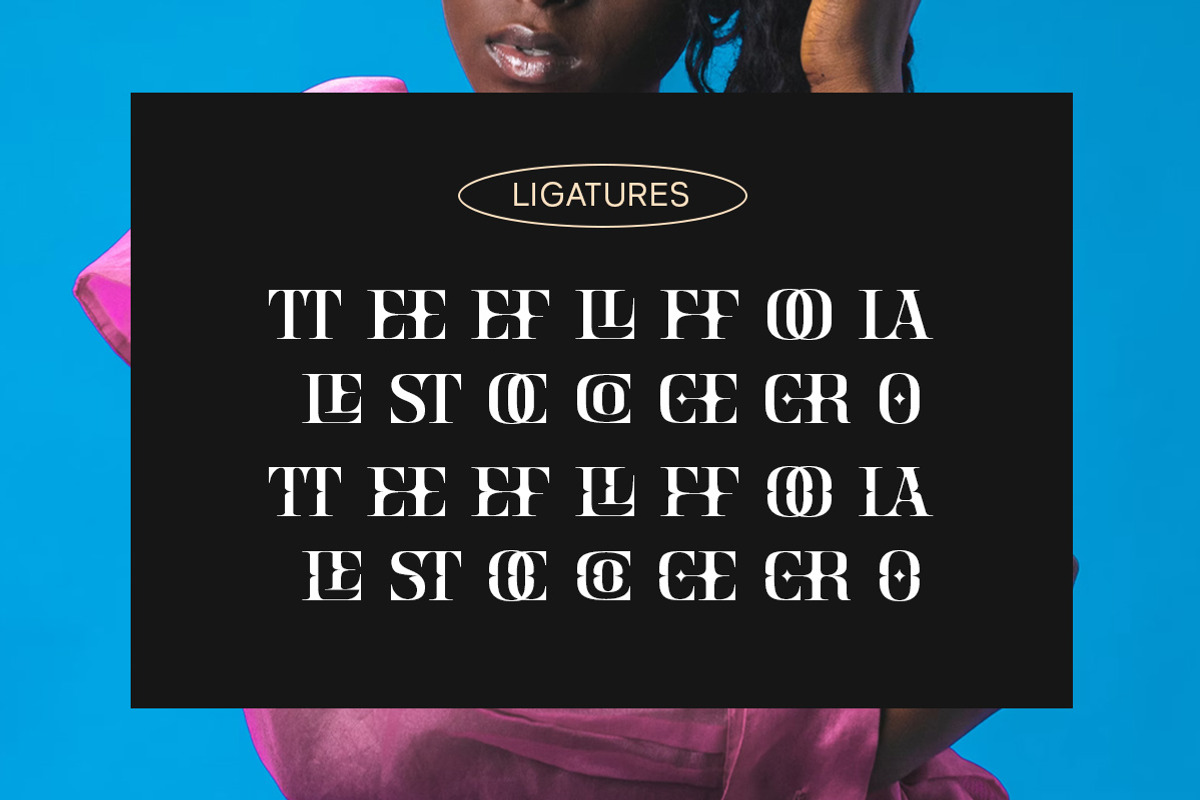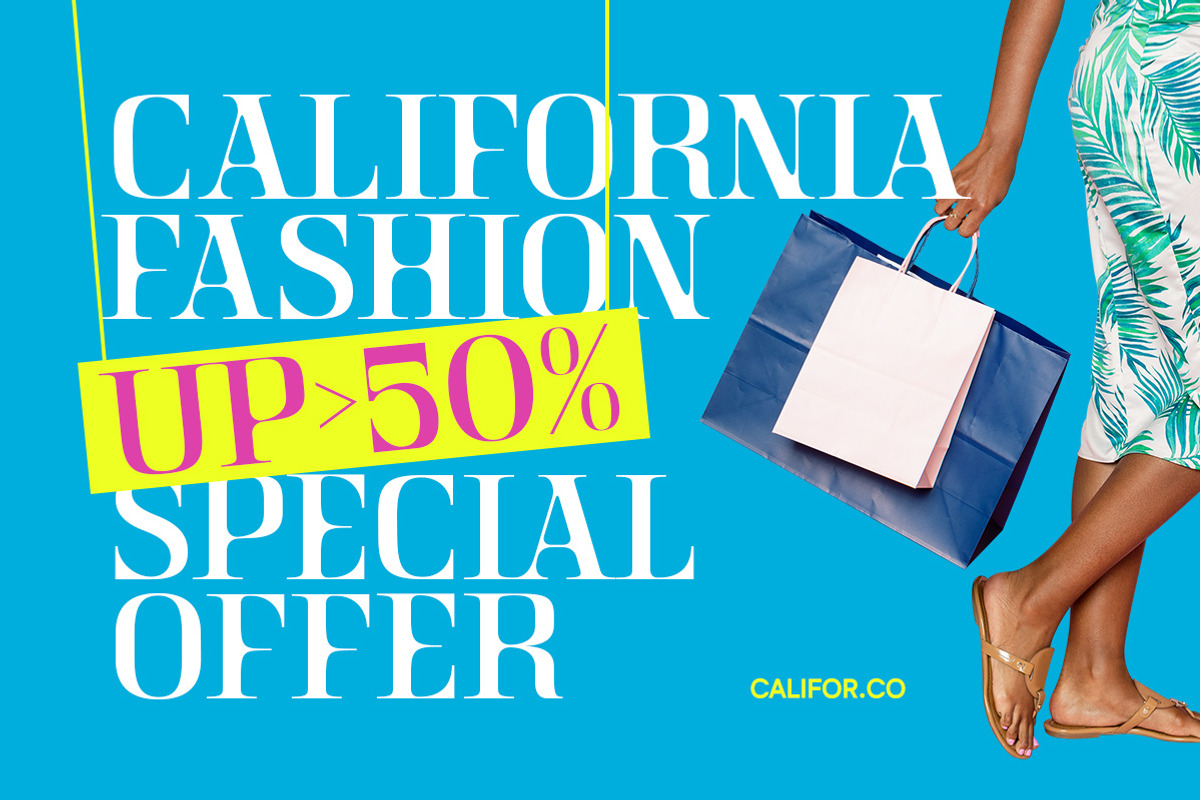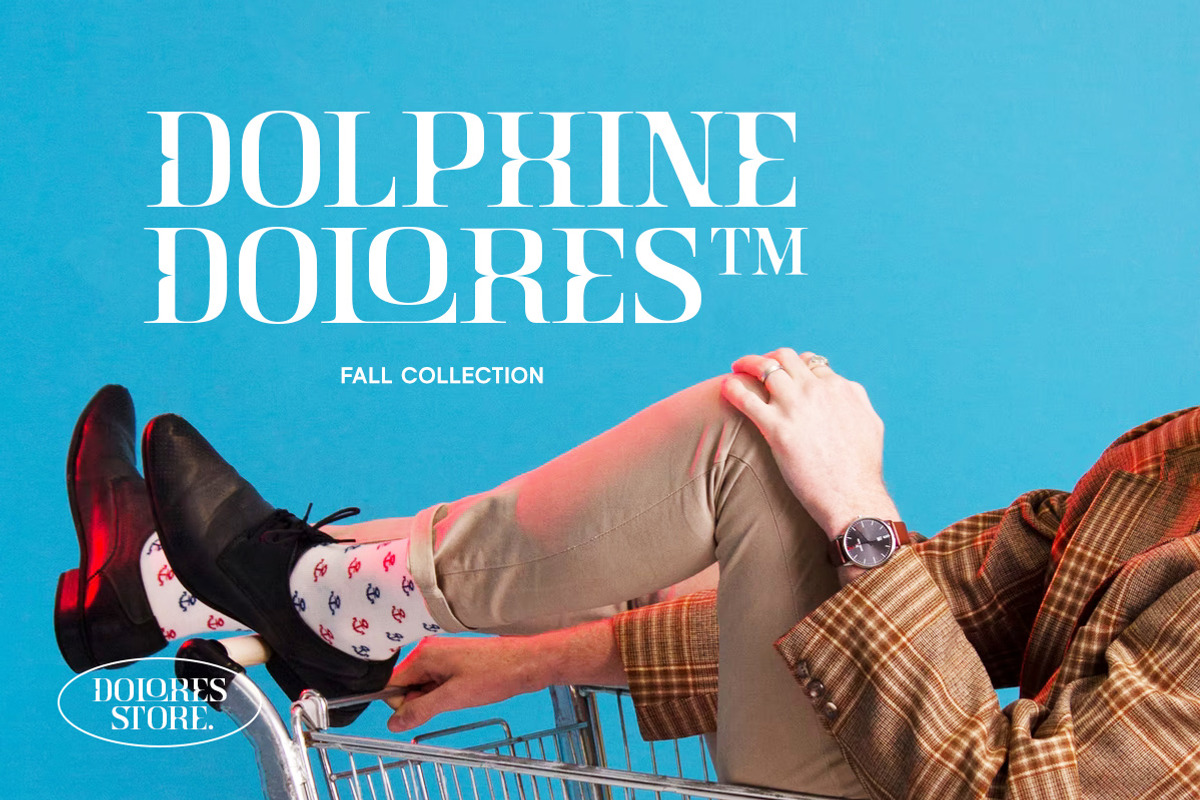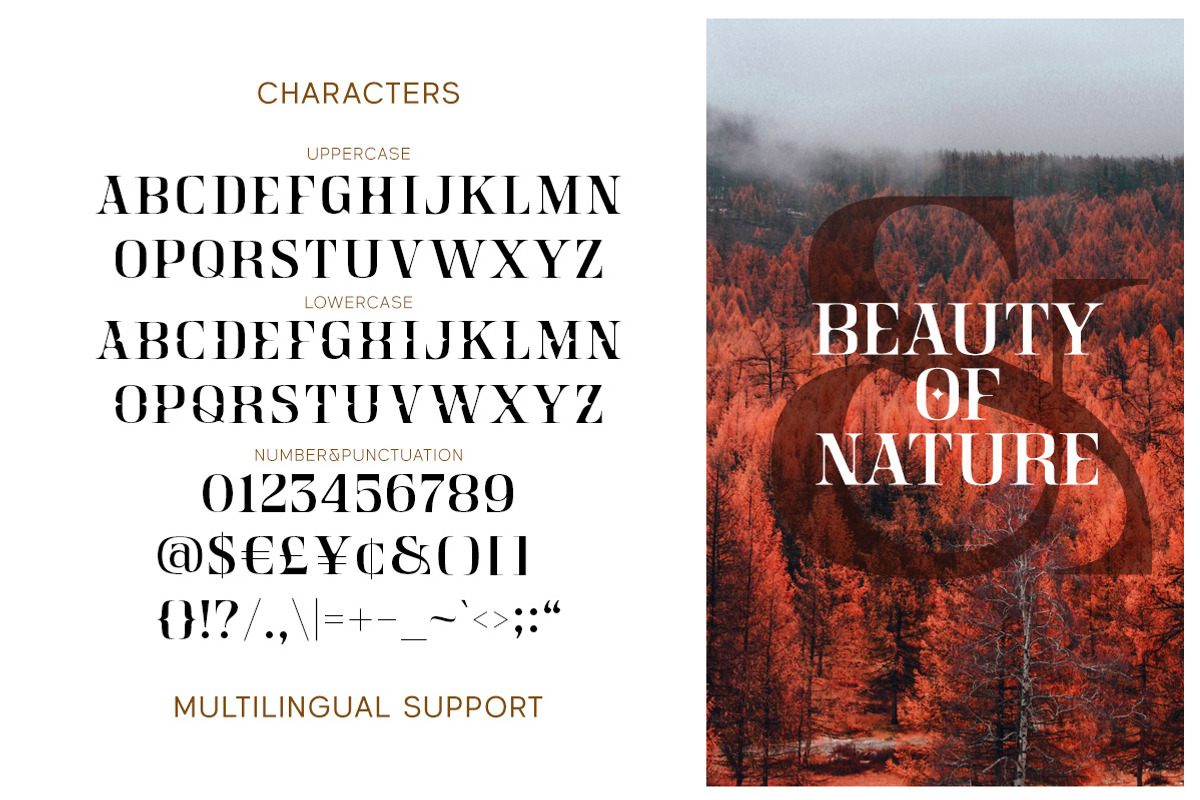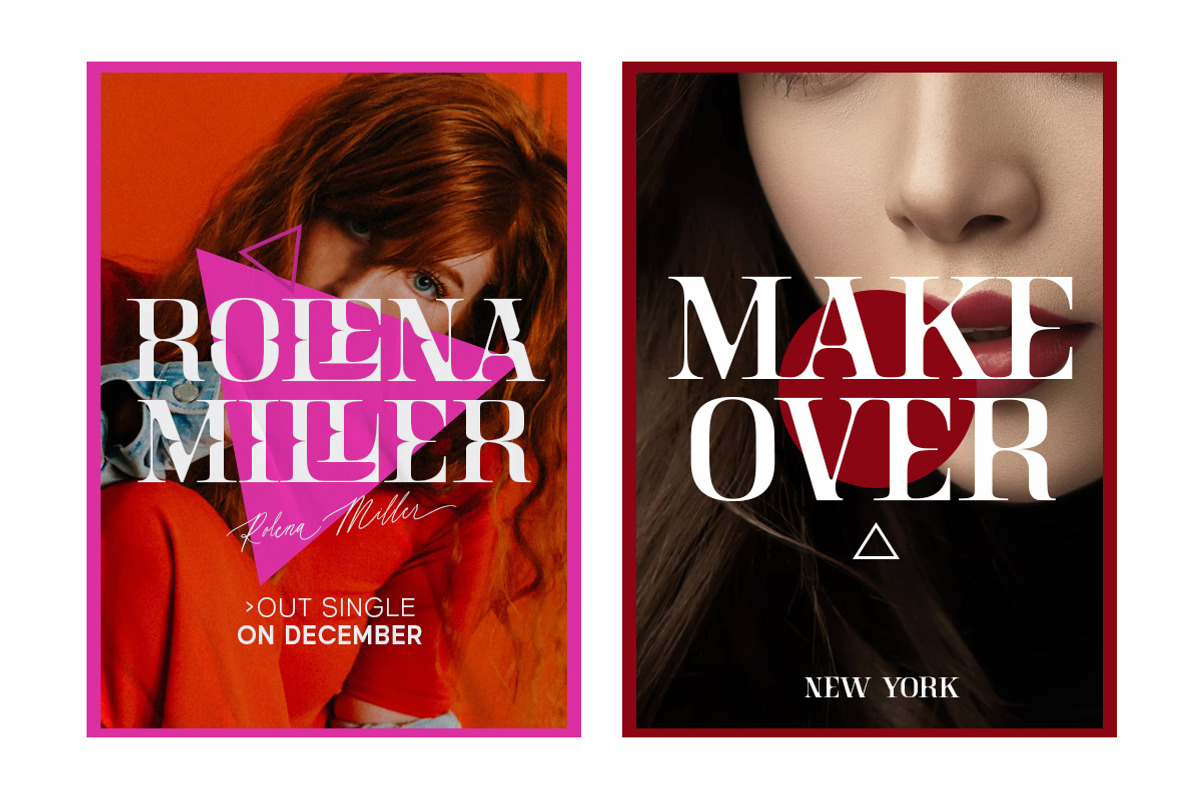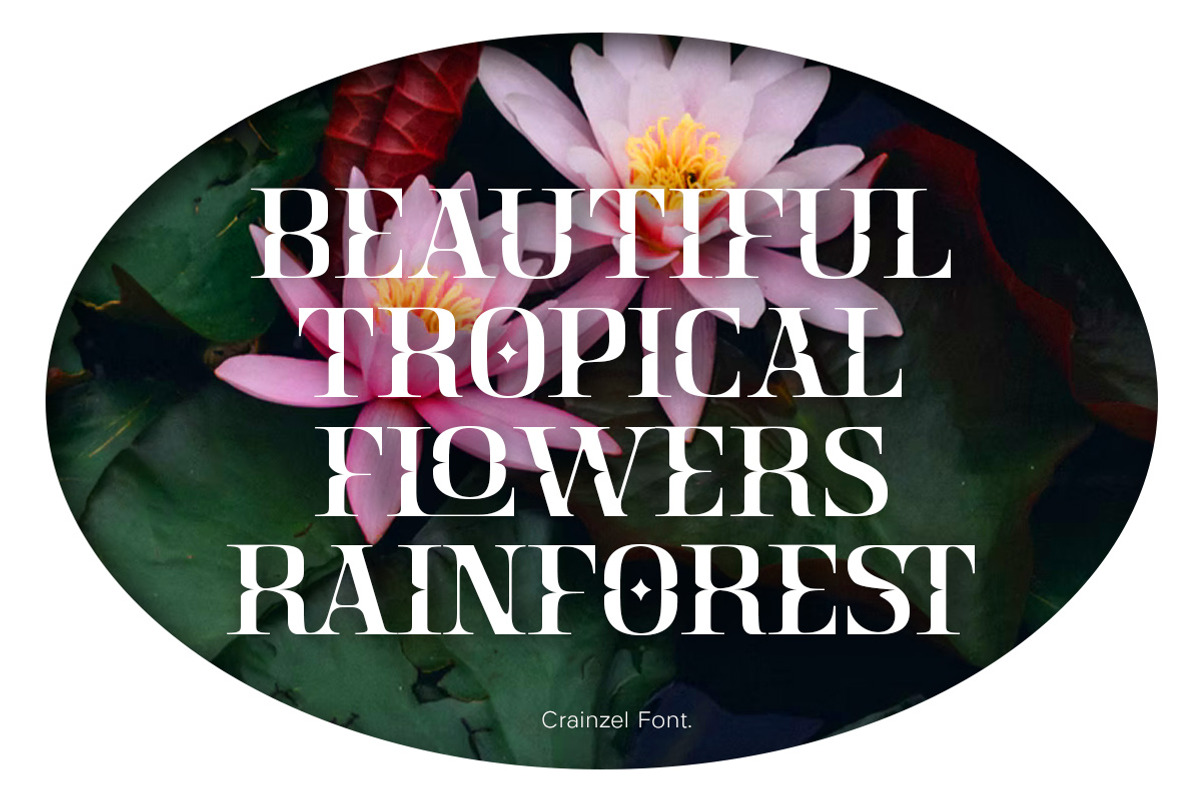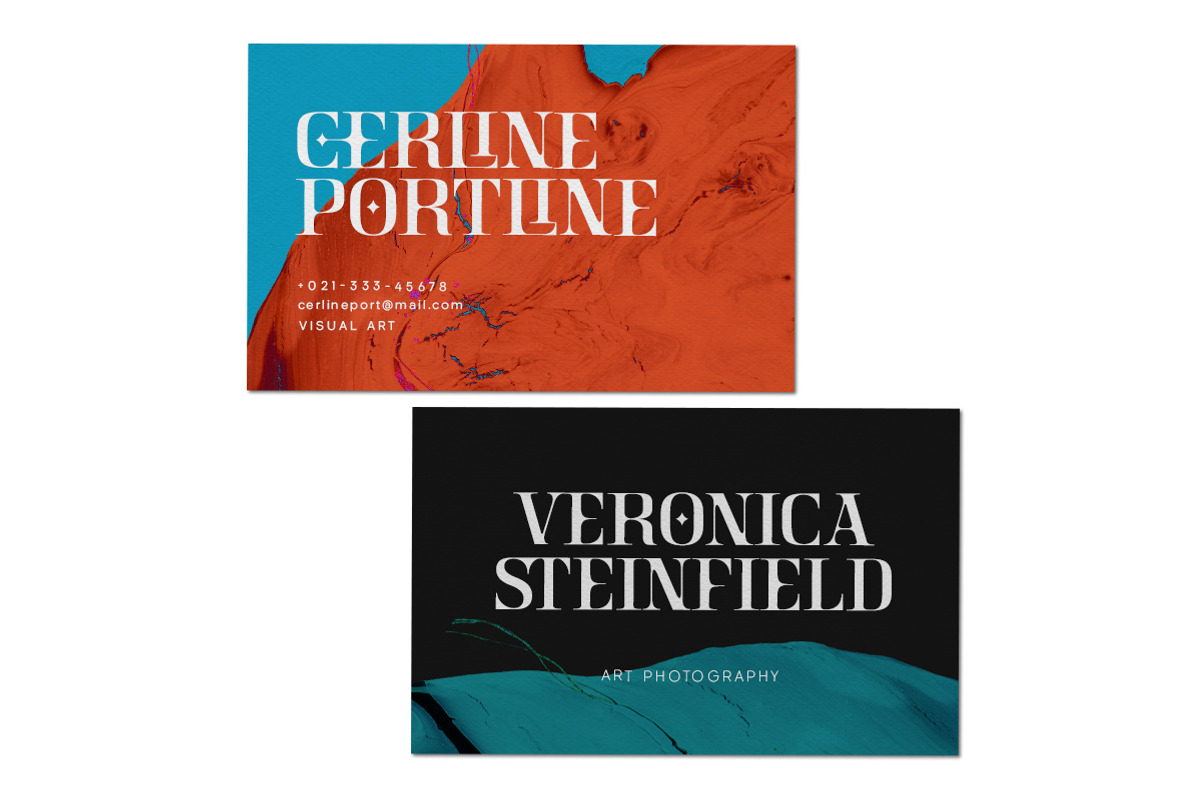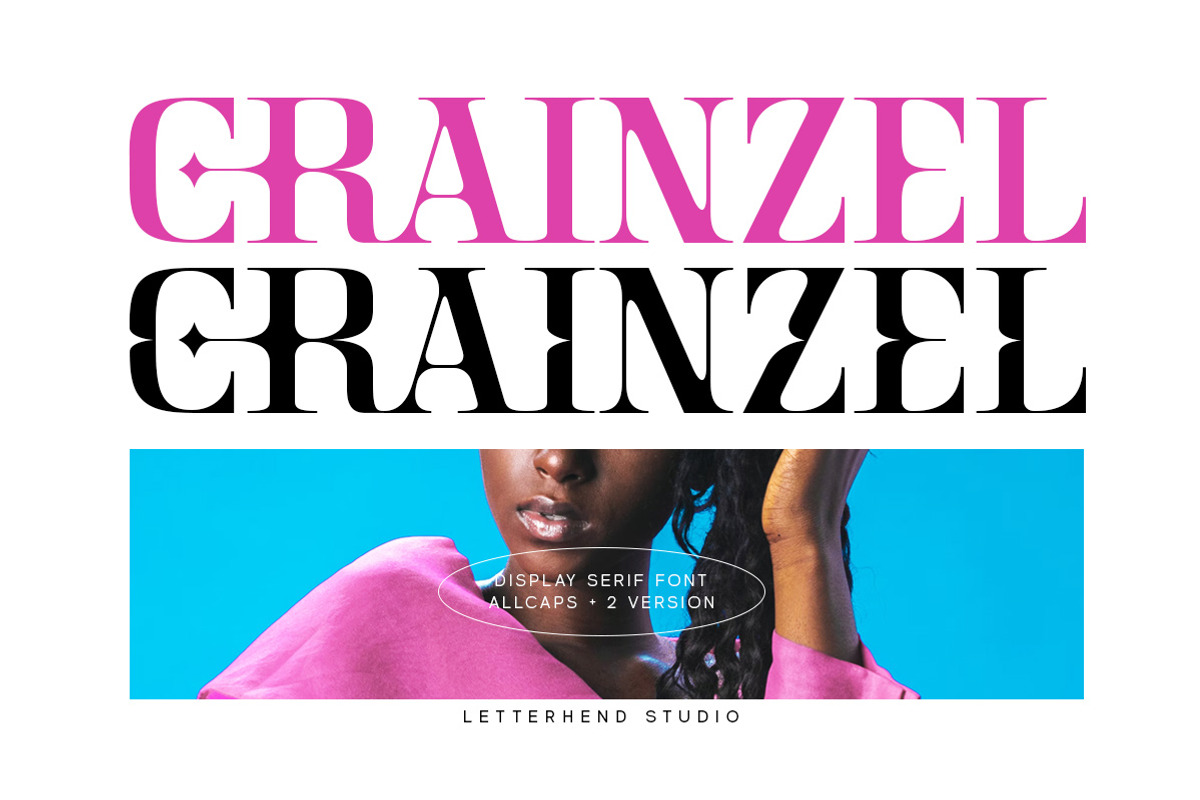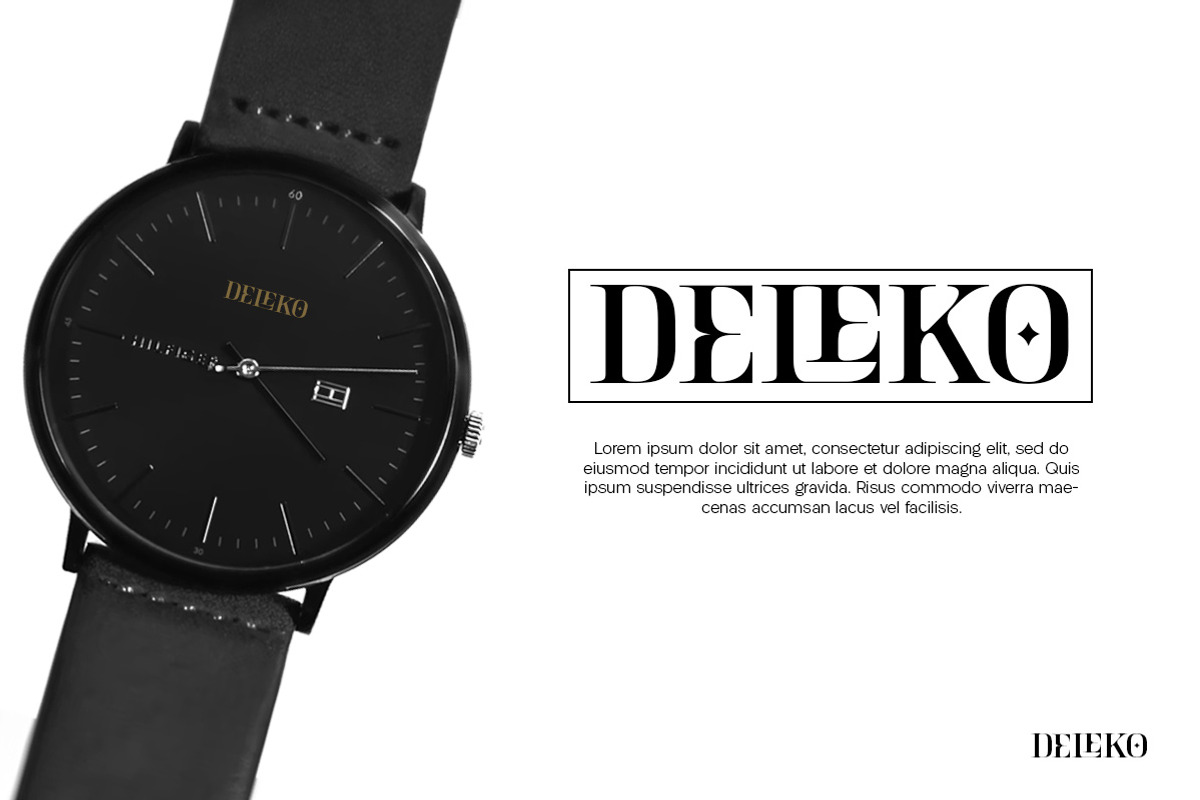
Crainzel - Display Serif Font
Crainzel is a sophisticated high contrast display serif typeface. The ligature character makes this typeface unique and stands out rather than the regular serif font. Very suitable for logo, headline, tittle, and the other various formal forms such as invitations, labels, logos, magazines, books, greeting / wedding cards, packaging, fashion, make up, stationery, novels, labels or any type of advertising purpose.